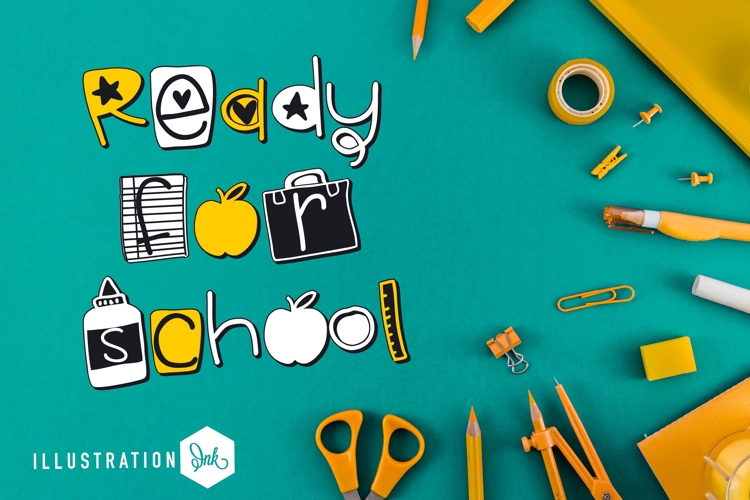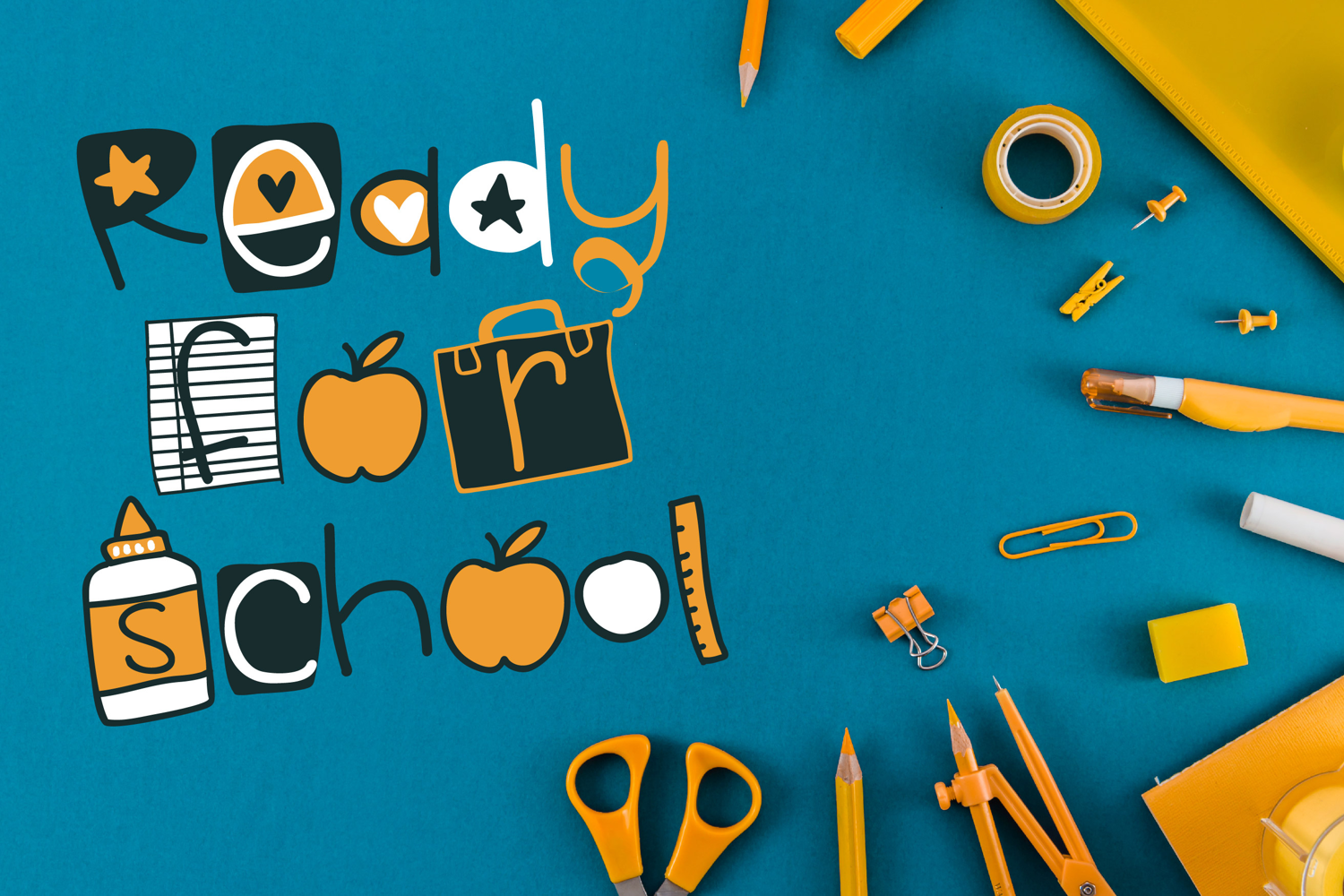
Ready for School Font Family
This hand-crafted font is a whimsical, very youthful, hand-written print with some letters substituted with school supplies.